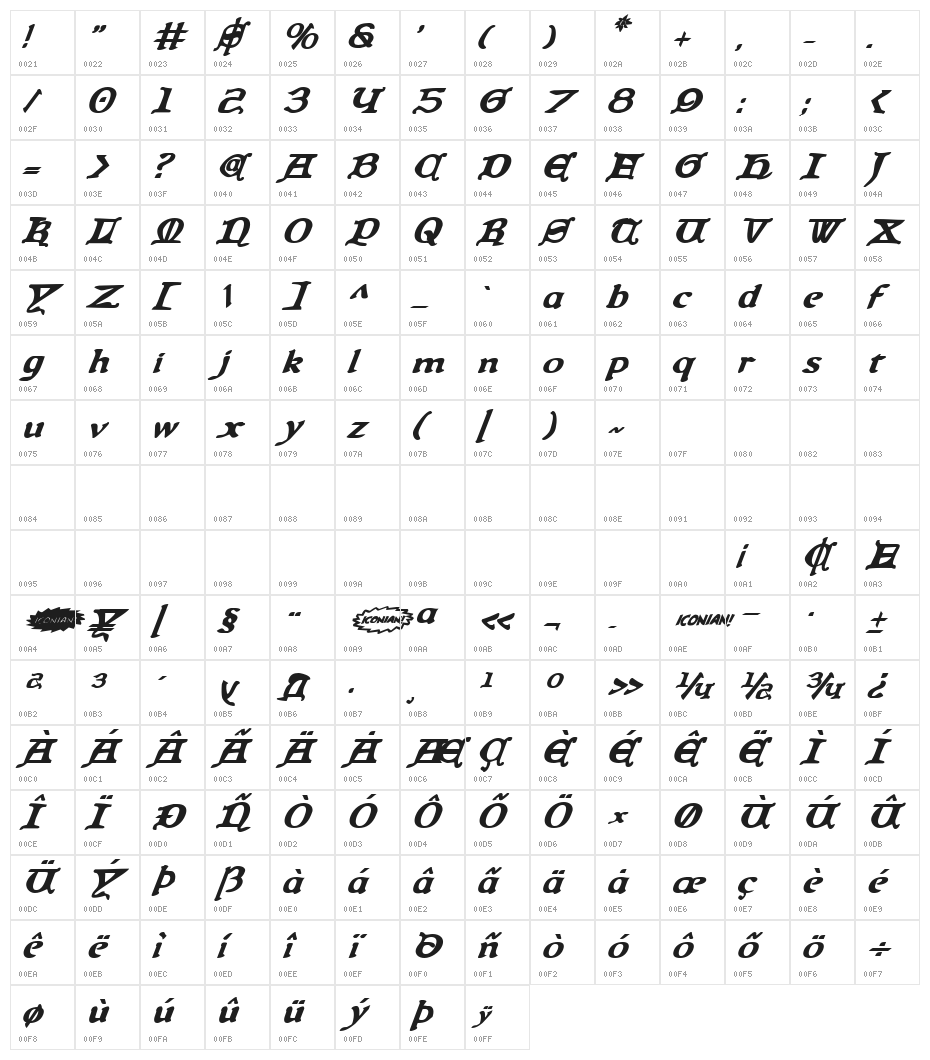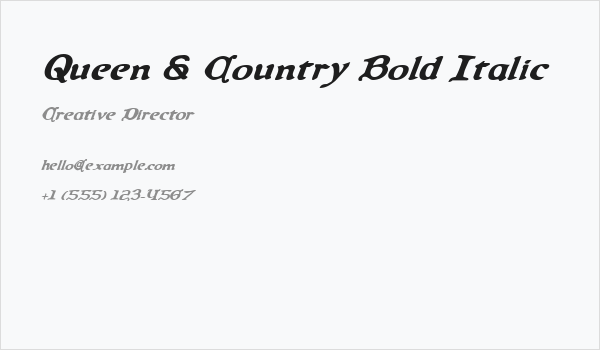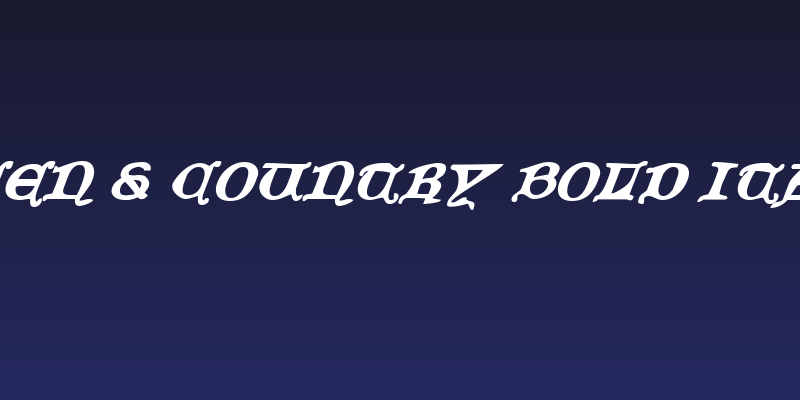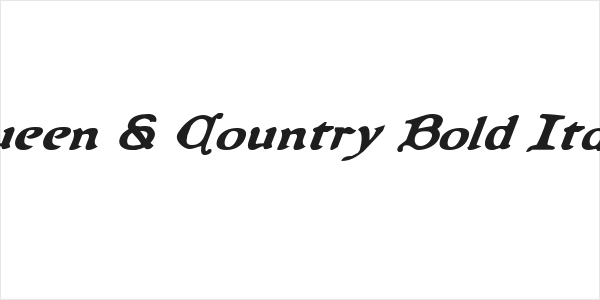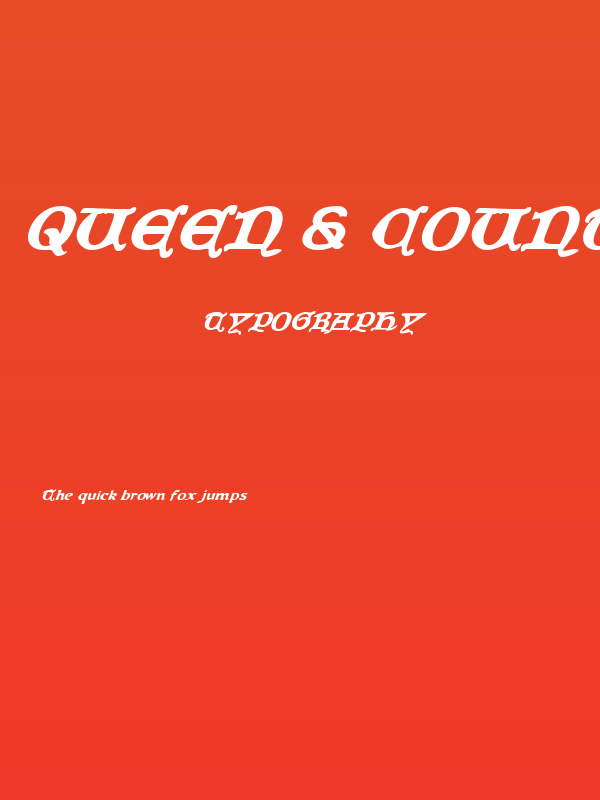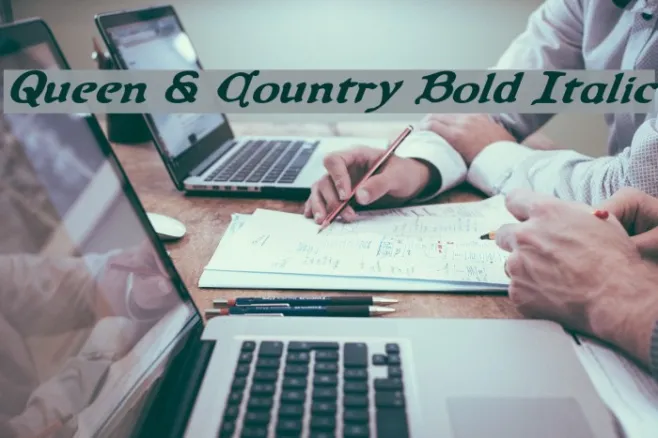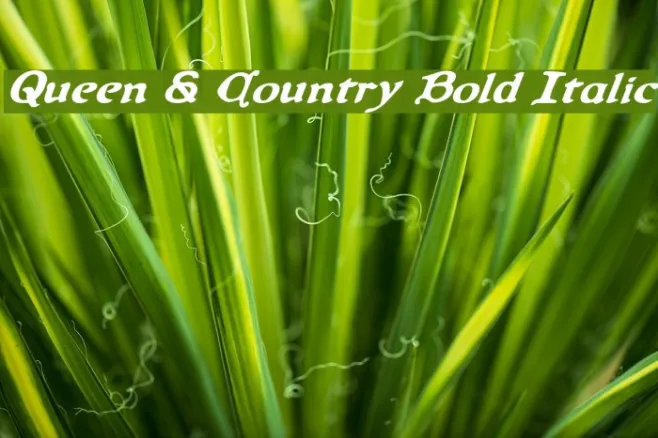
Queen & Country Bold Italic Font
Queen & Country Bold Italic Description
This font features a bold and italicized style with a strong, dynamic presence. The characters are designed with a decorative flair, incorporating sharp angles and flowing curves that create a sense of movement and elegance. The uppercase letters are particularly striking, with unique embellishments that add a touch of sophistication. The lowercase letters maintain a consistent style, ensuring readability while still offering a distinctive look. Numbers and special characters are crafted with the same attention to detail, making them suitable for a variety of uses. The overall design is both modern and classic, making it versatile for numerous applications.
| Overall Style | Modern, Classic |
| Proposed Projects | Ideal for branding, headlines, posters, and any project requiring a bold, elegant touch. |